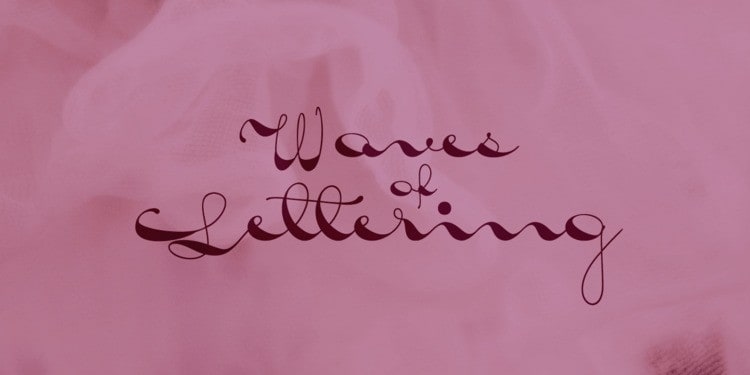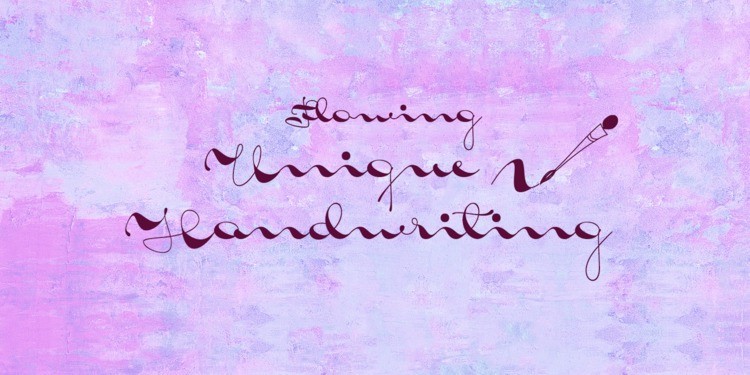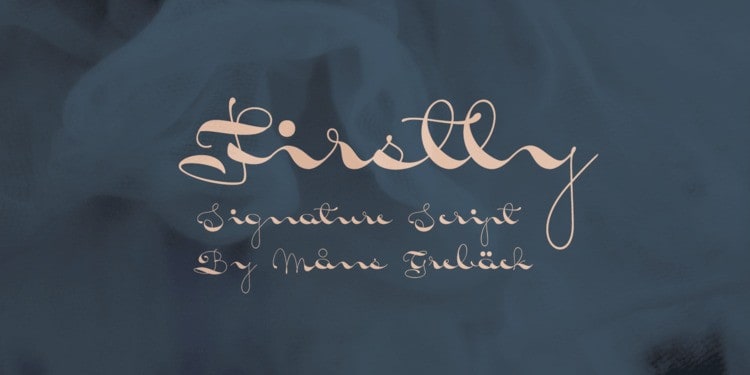
Firstly Script Font
Firstly Script Font is a modern hand lettering script with a unique character. This handwritten beauty is suitable from high-end sophisticated brandings to simple memorable Instagram quotes. It was created by Måns Grebäck during 2019 and 2020. Its wavy shapes and soft flow gives any project or logotype a well-balanced personality. It has an extensive lingual support, covering all European Latin scripts. The typeface contains all characters you’ll ever need, including all punctuation and numbers.